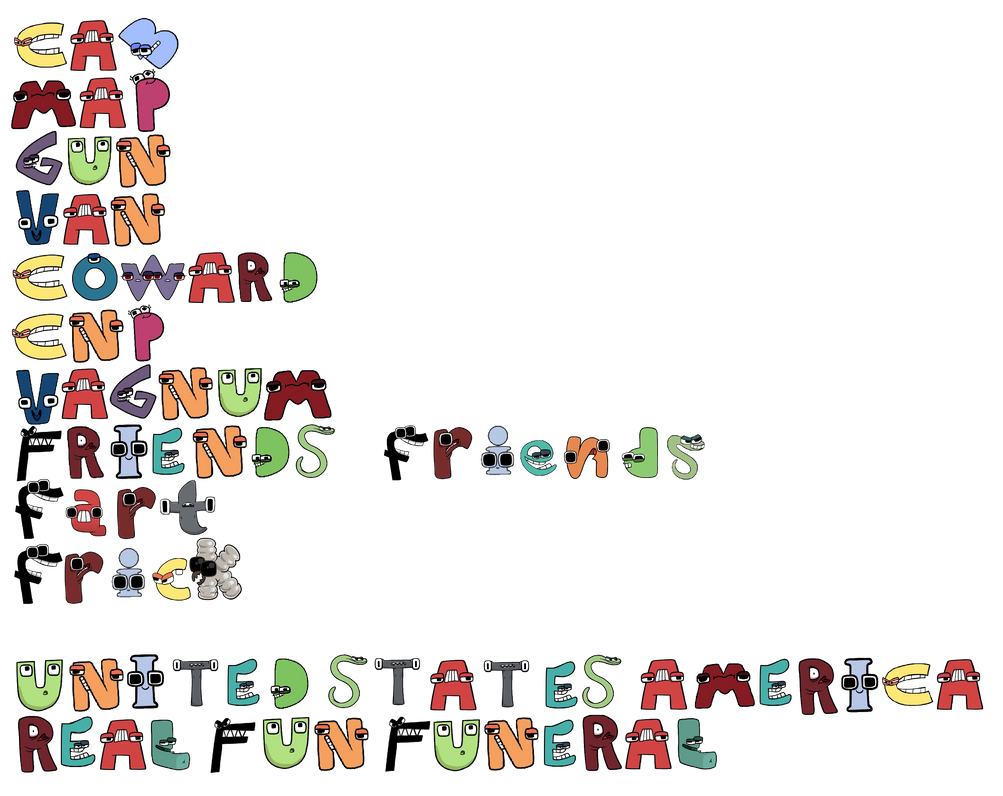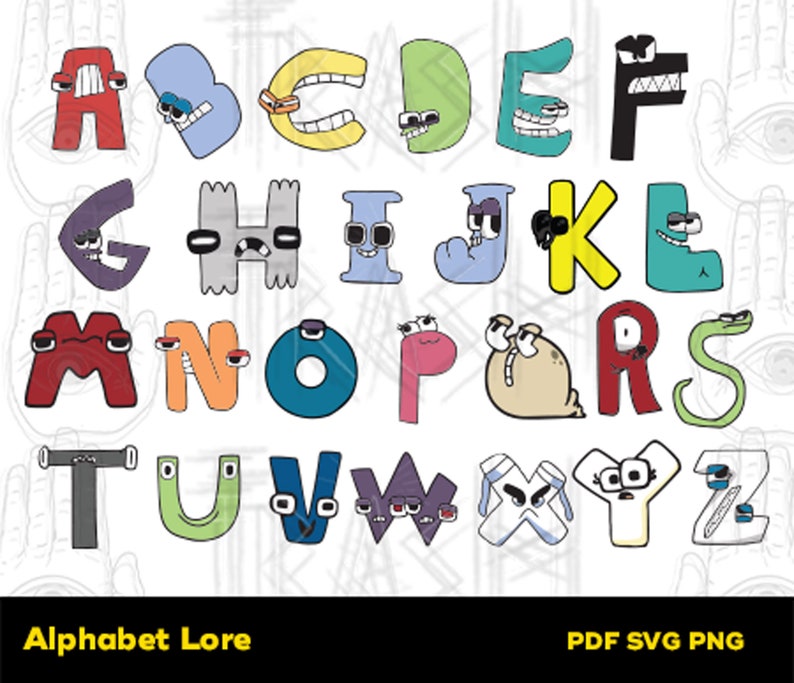
Alphabet Lore Font
Alphabet Lore Font - The alphabet lore font (super duper best!) by. Web this is a alphabet lore font project that someone likes! Moreover, you can embed it to your website with. Web alphabet lore font (better (again)) remix by mtyhpitc2023; This font replaces the letters with numbers and. Web the alphabet lore or also called the alphabet number lore font is a decorative font that was created by grace kelly. Web create a text effect alphabet lore with our online custom font generator. Alphabet lore font (better (again)) remix by sissycrabtree; I updated the lowercase's voices to look accurate to nz.
Web alphabet lore font (better (again)) remix by mtyhpitc2023; This font replaces the letters with numbers and. Web create a text effect alphabet lore with our online custom font generator. I updated the lowercase's voices to look accurate to nz. Moreover, you can embed it to your website with. Alphabet lore font (better (again)) remix by sissycrabtree; Web this is a alphabet lore font project that someone likes! Web the alphabet lore or also called the alphabet number lore font is a decorative font that was created by grace kelly. The alphabet lore font (super duper best!) by.
Web the alphabet lore or also called the alphabet number lore font is a decorative font that was created by grace kelly. This font replaces the letters with numbers and. Alphabet lore font (better (again)) remix by sissycrabtree; The alphabet lore font (super duper best!) by. Web create a text effect alphabet lore with our online custom font generator. Web alphabet lore font (better (again)) remix by mtyhpitc2023; Web this is a alphabet lore font project that someone likes! I updated the lowercase's voices to look accurate to nz. Moreover, you can embed it to your website with.
Moreover, you can embed it to your website with. Web create a text effect alphabet lore with our online custom font generator. This font replaces the letters with numbers and. Web this is a alphabet lore font project that someone likes! The alphabet lore font (super duper best!) by.
Web this is a alphabet lore font project that someone likes! Alphabet lore font (better (again)) remix by sissycrabtree; Moreover, you can embed it to your website with. Web the alphabet lore or also called the alphabet number lore font is a decorative font that was created by grace kelly. Web alphabet lore font (better (again)) remix by mtyhpitc2023;
Web create a text effect alphabet lore with our online custom font generator. Moreover, you can embed it to your website with. Web this is a alphabet lore font project that someone likes! This font replaces the letters with numbers and. Web the alphabet lore or also called the alphabet number lore font is a decorative font that was created.
The alphabet lore font (super duper best!) by. I updated the lowercase's voices to look accurate to nz. Web create a text effect alphabet lore with our online custom font generator. This font replaces the letters with numbers and. Web alphabet lore font (better (again)) remix by mtyhpitc2023;
Web the alphabet lore or also called the alphabet number lore font is a decorative font that was created by grace kelly. Web create a text effect alphabet lore with our online custom font generator. Alphabet lore font (better (again)) remix by sissycrabtree; Web alphabet lore font (better (again)) remix by mtyhpitc2023; Moreover, you can embed it to your website.
This font replaces the letters with numbers and. I updated the lowercase's voices to look accurate to nz. Alphabet lore font (better (again)) remix by sissycrabtree; Web this is a alphabet lore font project that someone likes! Web the alphabet lore or also called the alphabet number lore font is a decorative font that was created by grace kelly.
Alphabet Lore in lowercase by MaiMitsudomoe123 on DeviantArt
I updated the lowercase's voices to look accurate to nz. The alphabet lore font (super duper best!) by. Alphabet lore font (better (again)) remix by sissycrabtree; This font replaces the letters with numbers and. Web the alphabet lore or also called the alphabet number lore font is a decorative font that was created by grace kelly.
Alphabet Lore Entire Alphabet Individual Letters Fonts Etsy
Web this is a alphabet lore font project that someone likes! I updated the lowercase's voices to look accurate to nz. Alphabet lore font (better (again)) remix by sissycrabtree; Web create a text effect alphabet lore with our online custom font generator. Web alphabet lore font (better (again)) remix by mtyhpitc2023;
Alphabet Lore Font Concept WIP by aidasanchez0212 on DeviantArt
The alphabet lore font (super duper best!) by. Alphabet lore font (better (again)) remix by sissycrabtree; Web create a text effect alphabet lore with our online custom font generator. Web alphabet lore font (better (again)) remix by mtyhpitc2023; Web this is a alphabet lore font project that someone likes!
LORE Font Free Dafont Free
Alphabet lore font (better (again)) remix by sissycrabtree; Web the alphabet lore or also called the alphabet number lore font is a decorative font that was created by grace kelly. Web create a text effect alphabet lore with our online custom font generator. The alphabet lore font (super duper best!) by. I updated the lowercase's voices to look accurate to.
Alphabet Lore Font (Better (Again)) Remix By Sissycrabtree;
Web this is a alphabet lore font project that someone likes! Web create a text effect alphabet lore with our online custom font generator. The alphabet lore font (super duper best!) by. This font replaces the letters with numbers and.
Web alphabet lore font (better (again)) remix by mtyhpitc2023; I updated the lowercase's voices to look accurate to nz. Web the alphabet lore or also called the alphabet number lore font is a decorative font that was created by grace kelly.